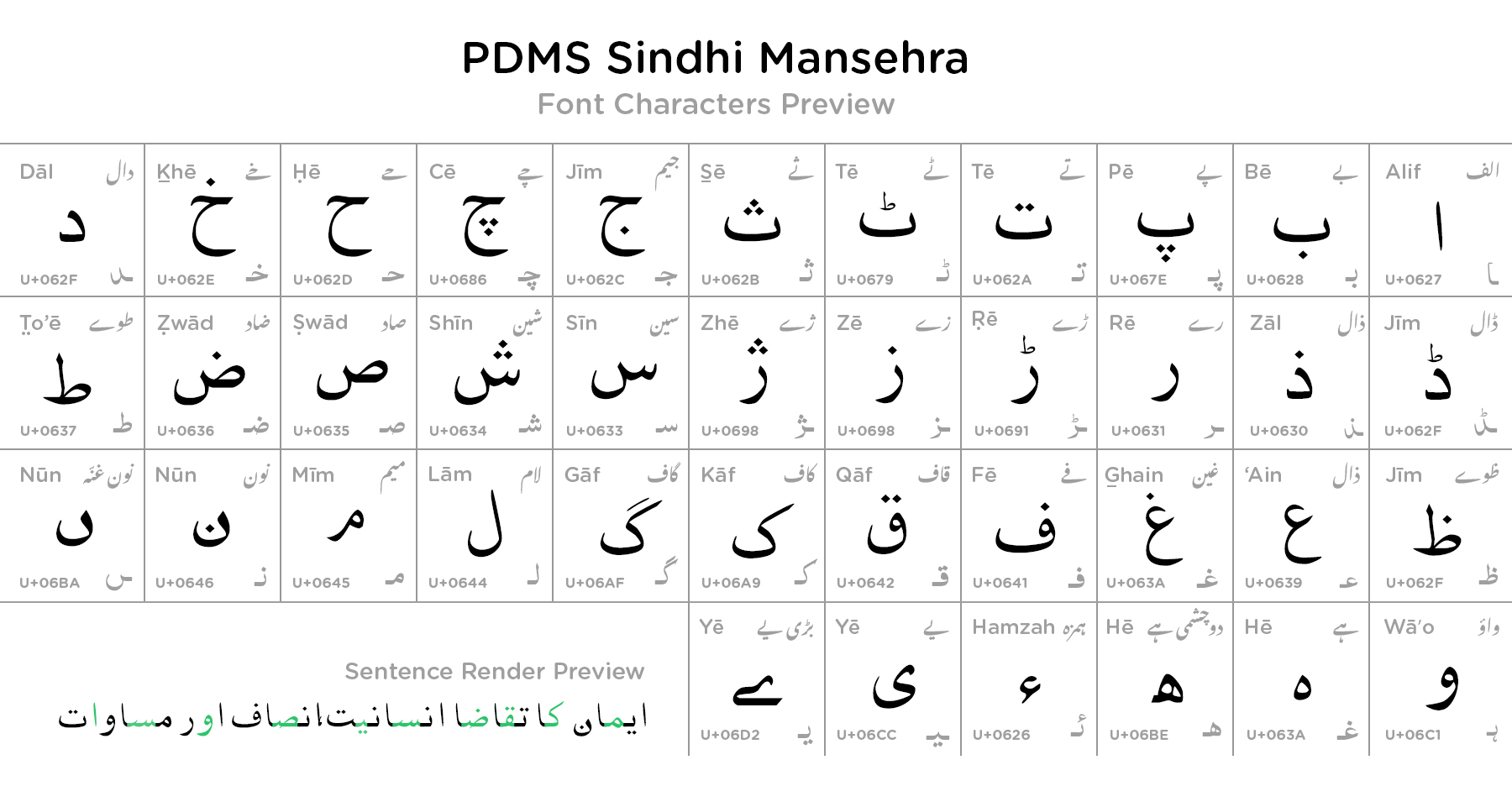
PDMS Sindhi Manshera
Naskh - Wide -
PDMS Sindhi Mansehra, a creation of Pakistan Data Management Services, epitomizes simplicity and readability in Sindhi typography. Trademarked under Nastaliq Nizami, this font style is characterized by its plain and straightforward appearance, devoid of intricate decorations. Released on November 14, 2019, the font offers 249 characters and 432 glyphs, catering to Arabic, Latin, Hebrew, and Symbols across diverse Unicode blocks. With a normal font-weight and medium width, it ensures adaptability and compatibility across various languages and platforms.
Inspired by the Naskh script and modern influences, this font’s moderate thickness and changing strokes strike a balance between appearance and legibility. Its simple yet highly readable design, coupled with constant and generous spacing between letters, gives the text a light and effortless feel. PDMS Sindhi Mansehra is best suited for longer text blocks, offering ease of reading even over extended periods. It finds versatile applications in branding, advertising, logos, Quran writing, invitations, and gift cards, providing a reliable option for various design projects.